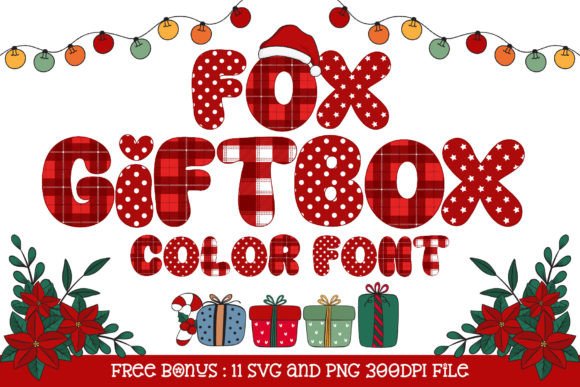
Looking for the perfect font to add a touch of festive elegance to your creative projects? Look no further than Fox Giftbox Font! Created by the talented Fox7, this charming and versatile color font is the ideal choice for all your Merry Christmas design needs.
With its stunning resemblance to gift wrapping paper, Fox Giftbox Font brings a sense of joy and excitement to your projects. The colorful font captures the essence of the holiday season, making it the perfect addition to your greeting cards, invitations, and festive decorations.
But Fox Giftbox Font is not just for professionals - it's perfect for DIY enthusiasts too! Let your creativity run wild and watch as this delightful font transforms your ordinary designs into extraordinary, unforgettable gifts and creations. Whether you're designing personalized Christmas ornaments or creating custom holiday gift tags, Fox Giftbox Font will add that special touch of magic to your projects.